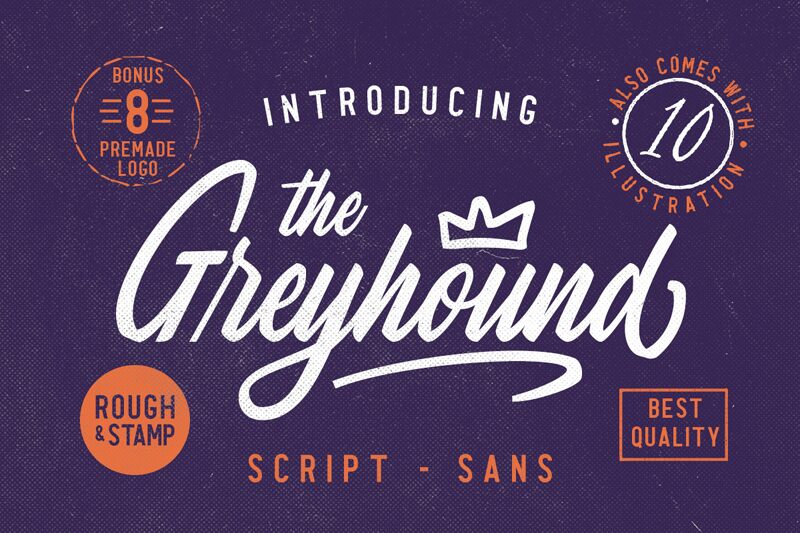
Greyhound is a stunning vintage calligraphy typeface designed by Rillatype. With its unique semi-light weight and extra-condensed width, this font is perfect for creating elegant and sophisticated designs that make a statement. Its intricate lettering style adds a touch of class to any project, making it suitable for wedding invitations, luxury branding, or even book covers. Greyhound's thin strokes and condensed spacing will captivate your audience with its delicate yet bold presence. This font is the perfect choice for those looking to add a touch of timeless elegance to their designs.